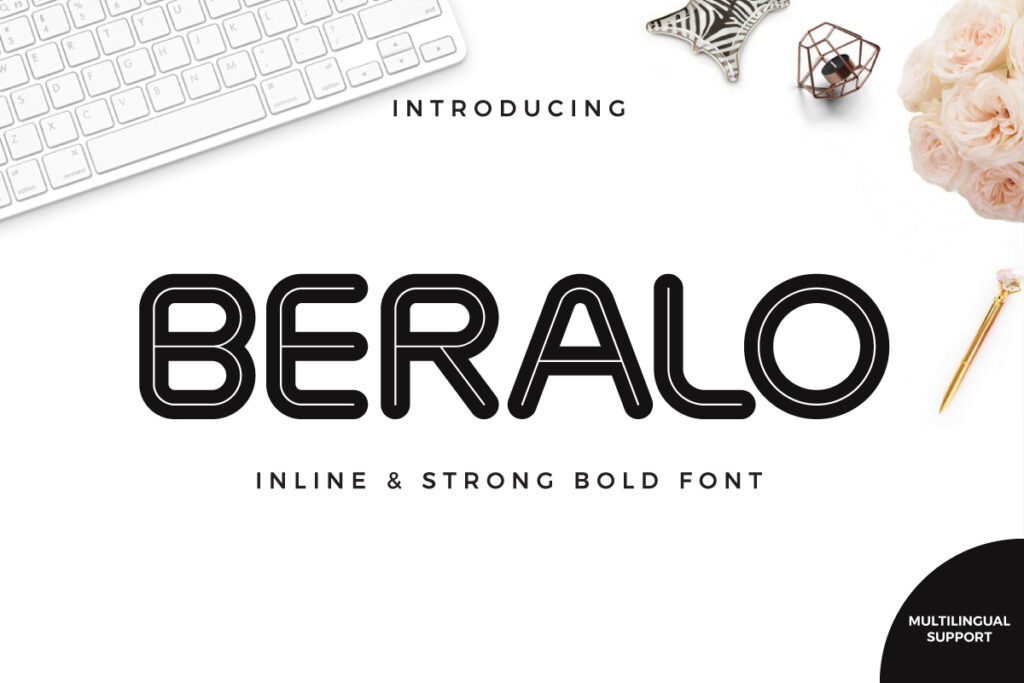
Introducing Beralo Inline Font: A Modern and Strong Rounded All-Caps Font
Beralo Inline is a simple, strong, and modern rounded all-caps font that has been making waves in the design world. This font is firm and straightforward, making it ideal for headlines or modern themes. In this article, we will explore the features and benefits of Beralo Inline Font and why it’s becoming a popular choice among designers.
What is Beralo Inline Font?
Beralo Inline is a type of font that is characterized by its rounded and smooth edges. It is an all-caps font, which means that it only features capital letters, making it perfect for headlines, titles, and other applications where a strong and bold look is desired. The font is designed to be simple, yet strong and modern, making it a versatile choice for a wide range of design projects.
Key Features of Beralo Inline Font
Beralo Inline Font has several key features that make it stand out from other fonts. Some of its notable features include:
- Rounded edges: Beralo Inline Font features rounded edges that give it a smooth and modern look.
- All-caps: The font is an all-caps font, making it perfect for headlines and titles.
- Simple and strong: The font is designed to be simple, yet strong and modern, making it a versatile choice for a wide range of design projects.
- Modern look: Beralo Inline Font has a modern look that is perfect for modern themes and designs.
Benefits of Using Beralo Inline Font
There are several benefits to using Beralo Inline Font in your design projects. Some of the benefits include:
- Improved readability: The font is designed to be clear and easy to read, making it perfect for headlines and titles.
- Enhanced visual appeal: Beralo Inline Font has a modern and sleek look that can enhance the visual appeal of your design projects.
- Versatility: The font is versatile and can be used in a wide range of design projects, from brochures and posters to websites and social media graphics.
- Easy to use: Beralo Inline Font is easy to use and can be easily integrated into your design projects.
Use Cases for Beralo Inline Font
Beralo Inline Font is a versatile font that can be used in a wide range of design projects. Some of the use cases for the font include:
- Headlines and titles: The font is perfect for headlines and titles, making it a great choice for brochures, posters, and other marketing materials.
- Modern themes: Beralo Inline Font is ideal for modern themes and designs, making it a great choice for websites, social media graphics, and other digital applications.
- Branding and logos: The font can be used to create strong and memorable brand logos and identities.
- Advertising and marketing: Beralo Inline Font can be used in advertising and marketing materials, such as billboards, flyers, and brochures.
Tips and Tricks for Using Beralo Inline Font
Here are some tips and tricks for using Beralo Inline Font:
- Use it sparingly: Use Beralo Inline Font sparingly to create emphasis and visual interest.
- Pair it with other fonts: Pair Beralo Inline Font with other fonts to create a unique and visually appealing look.
- Experiment with colors: Experiment with different colors to find the one that works best with Beralo Inline Font.
- Consider the context: Consider the context in which the font will be used and adjust the font size, style, and color accordingly.
Beralo Inline Font is a simple, strong, and modern rounded all-caps font that is ideal for headlines, modern themes, and design projects. With its rounded edges, all-caps design, and modern look, Beralo Inline Font is a versatile choice that can enhance the visual appeal of your design projects. By following the tips and tricks outlined in this article, you can get the most out of Beralo Inline Font and create stunning designs that capture the attention of your audience.